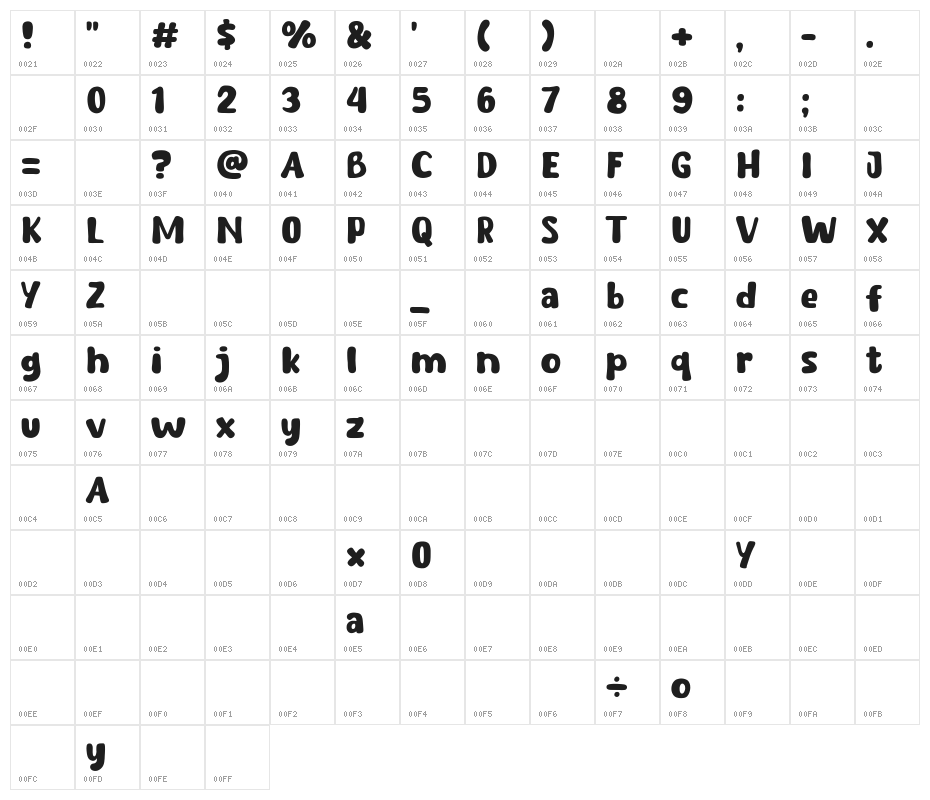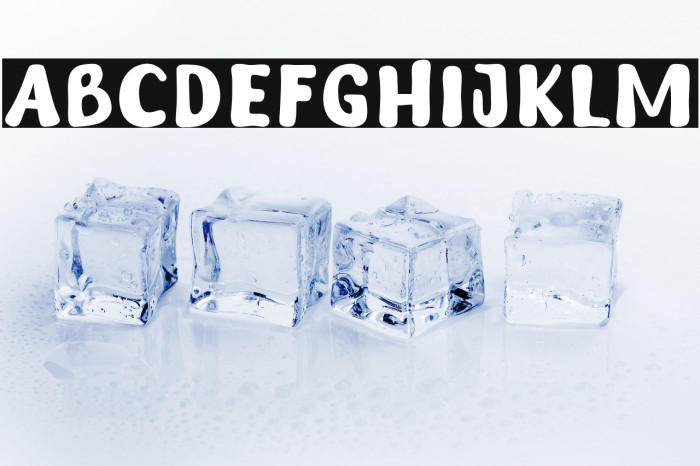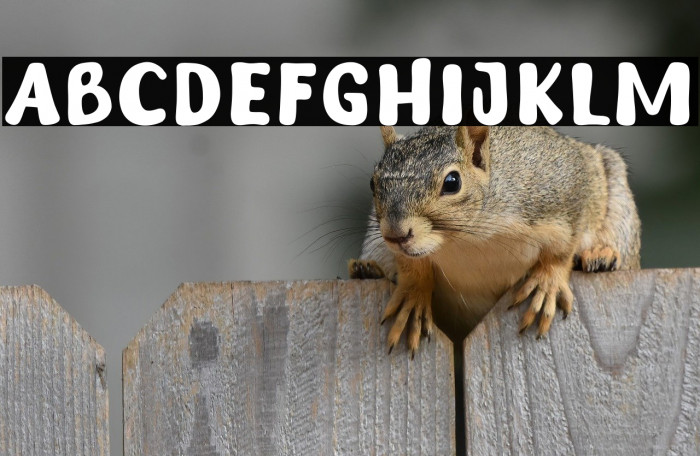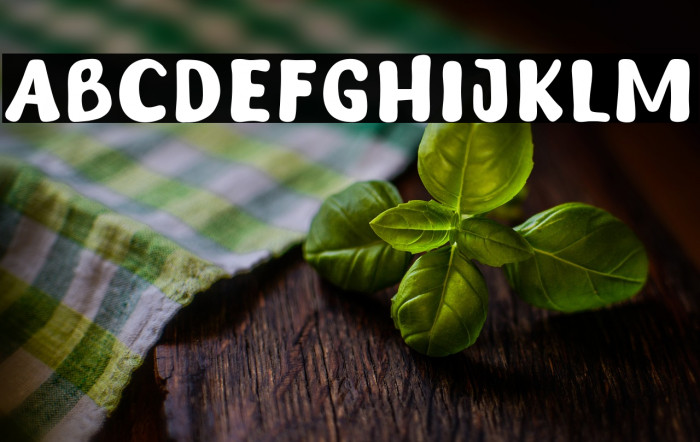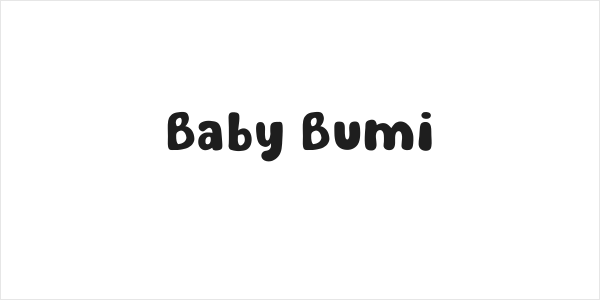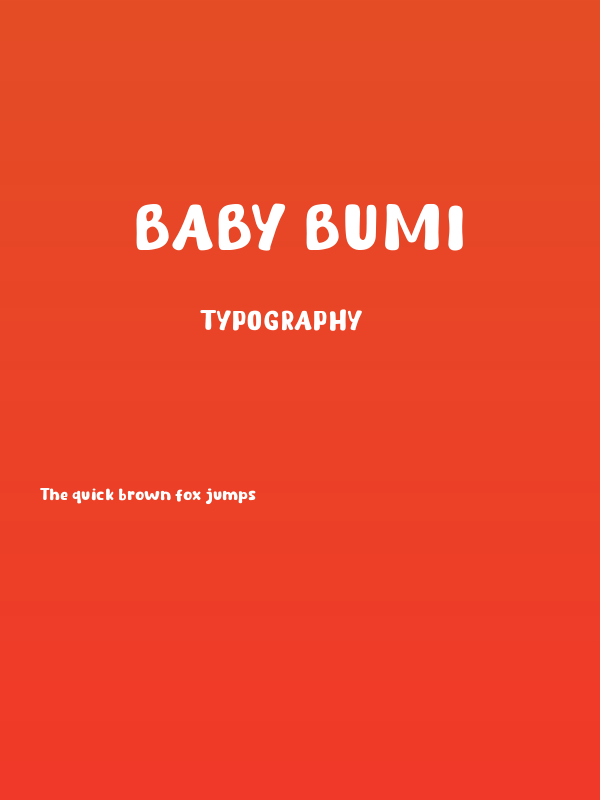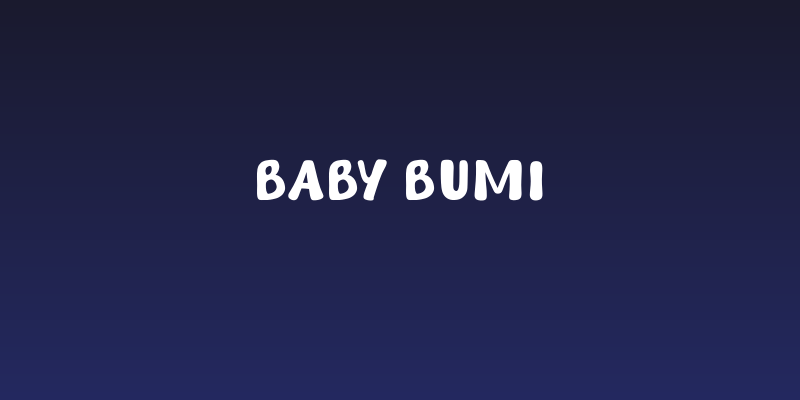
Baby Bumi Font
Baby Bumi Description
This playful and bold font features rounded, thick strokes that give it a friendly and approachable appearance. The characters are slightly irregular, adding a whimsical touch that makes it perfect for informal and fun designs. The uppercase and lowercase letters maintain a consistent style, with smooth curves and a uniform thickness that ensures readability. The numbers and special characters are designed to match the overall playful aesthetic, making them suitable for a variety of creative projects. This font's unique style is ideal for capturing attention and conveying a sense of joy and creativity.